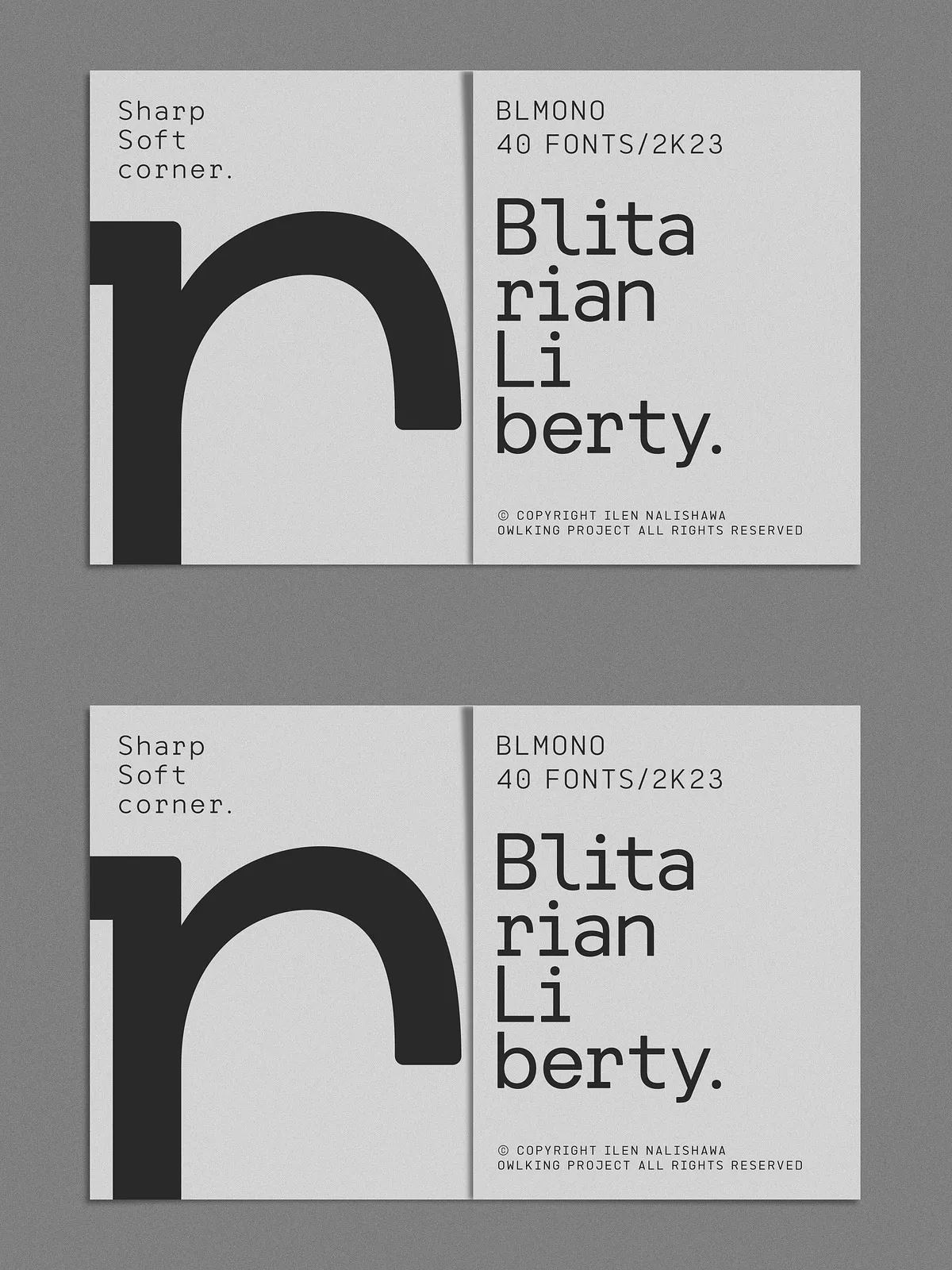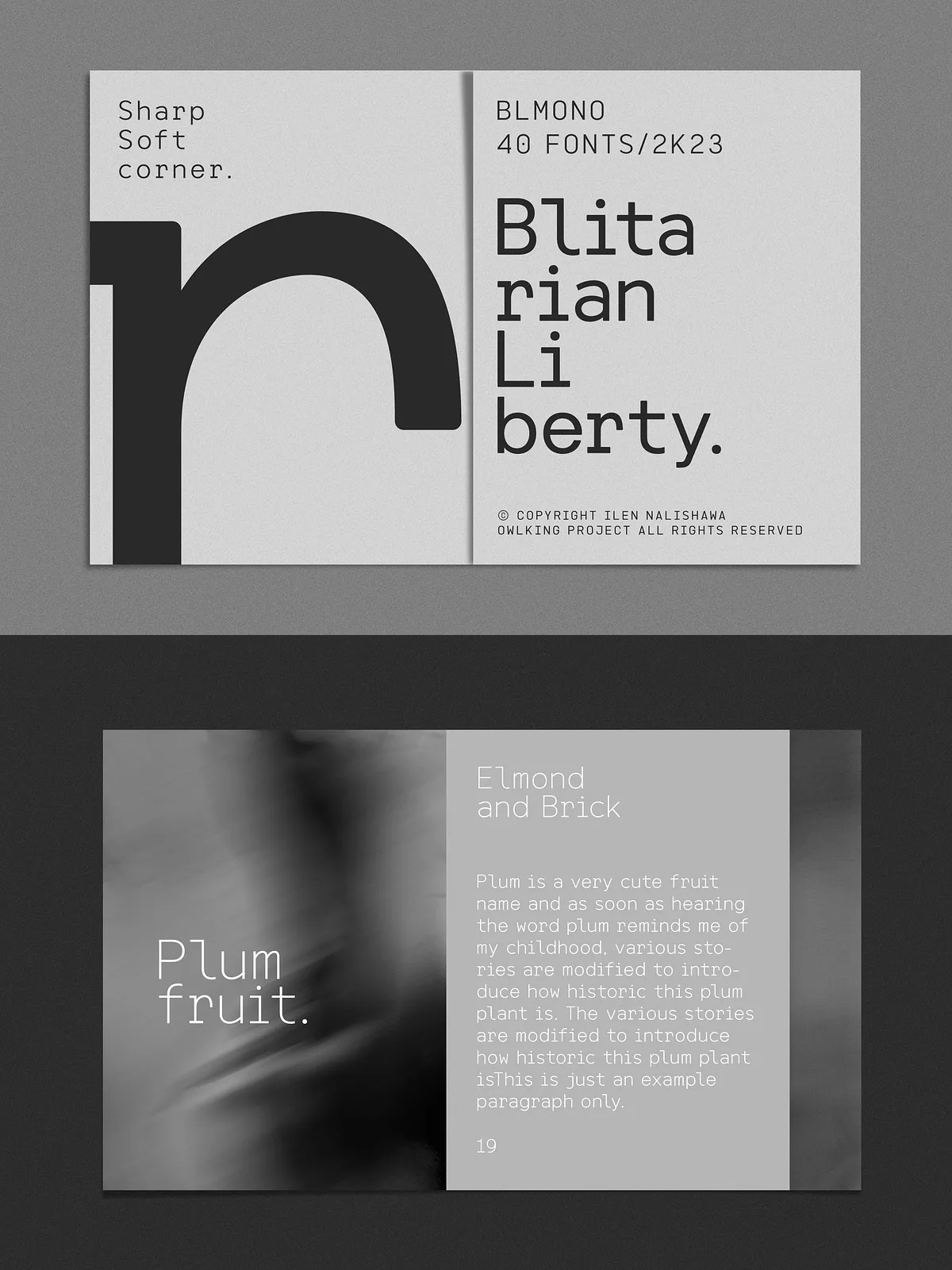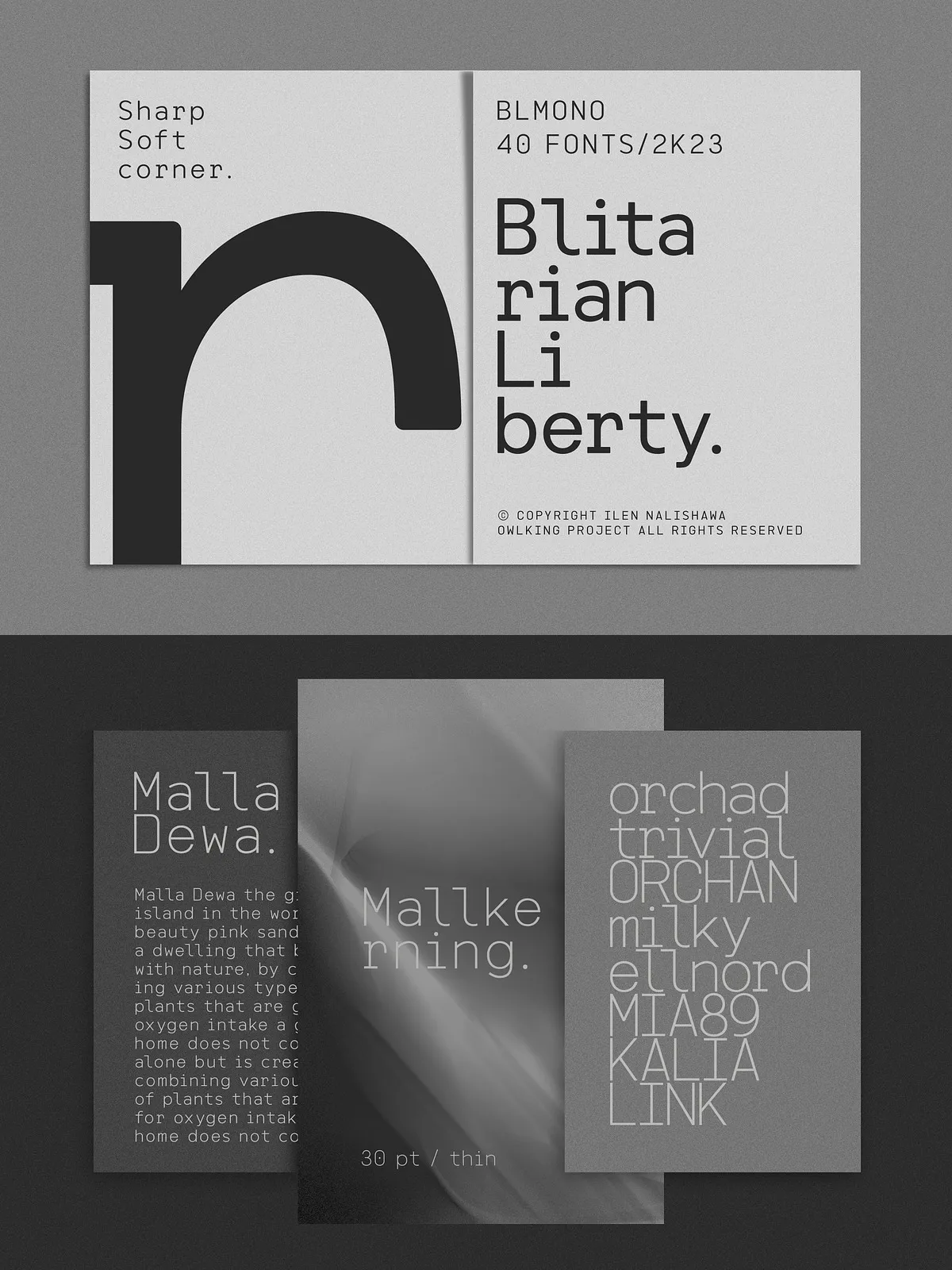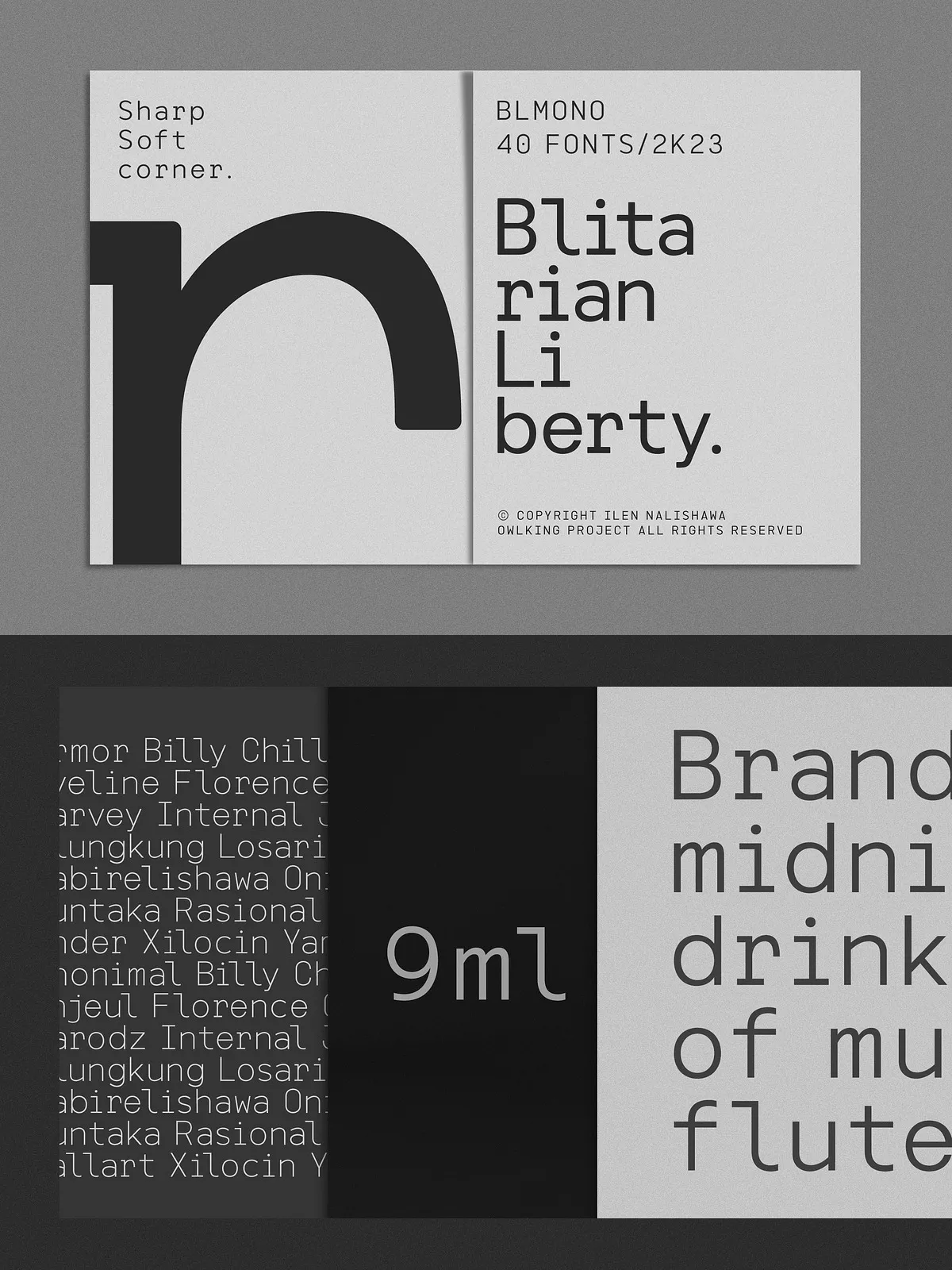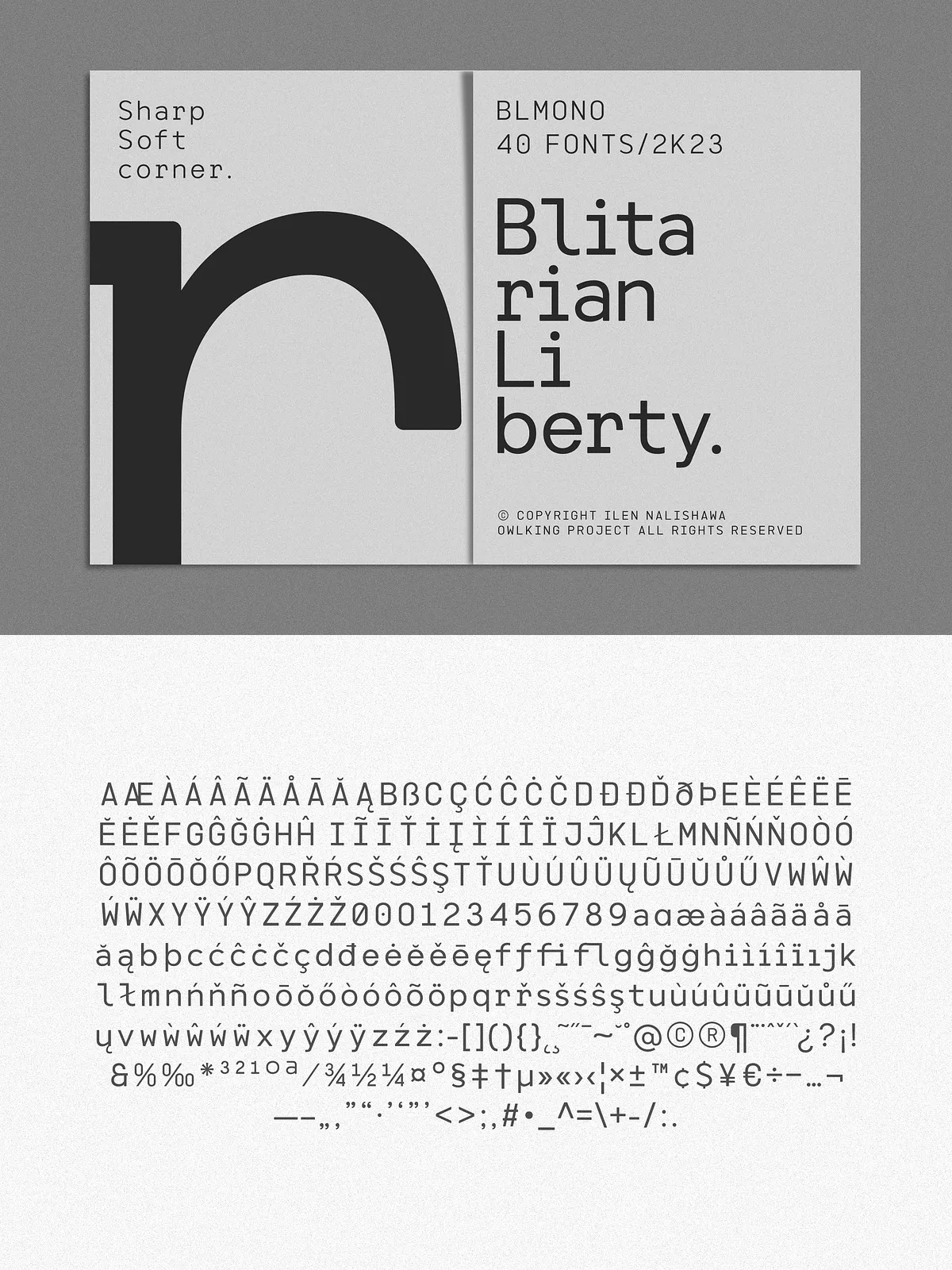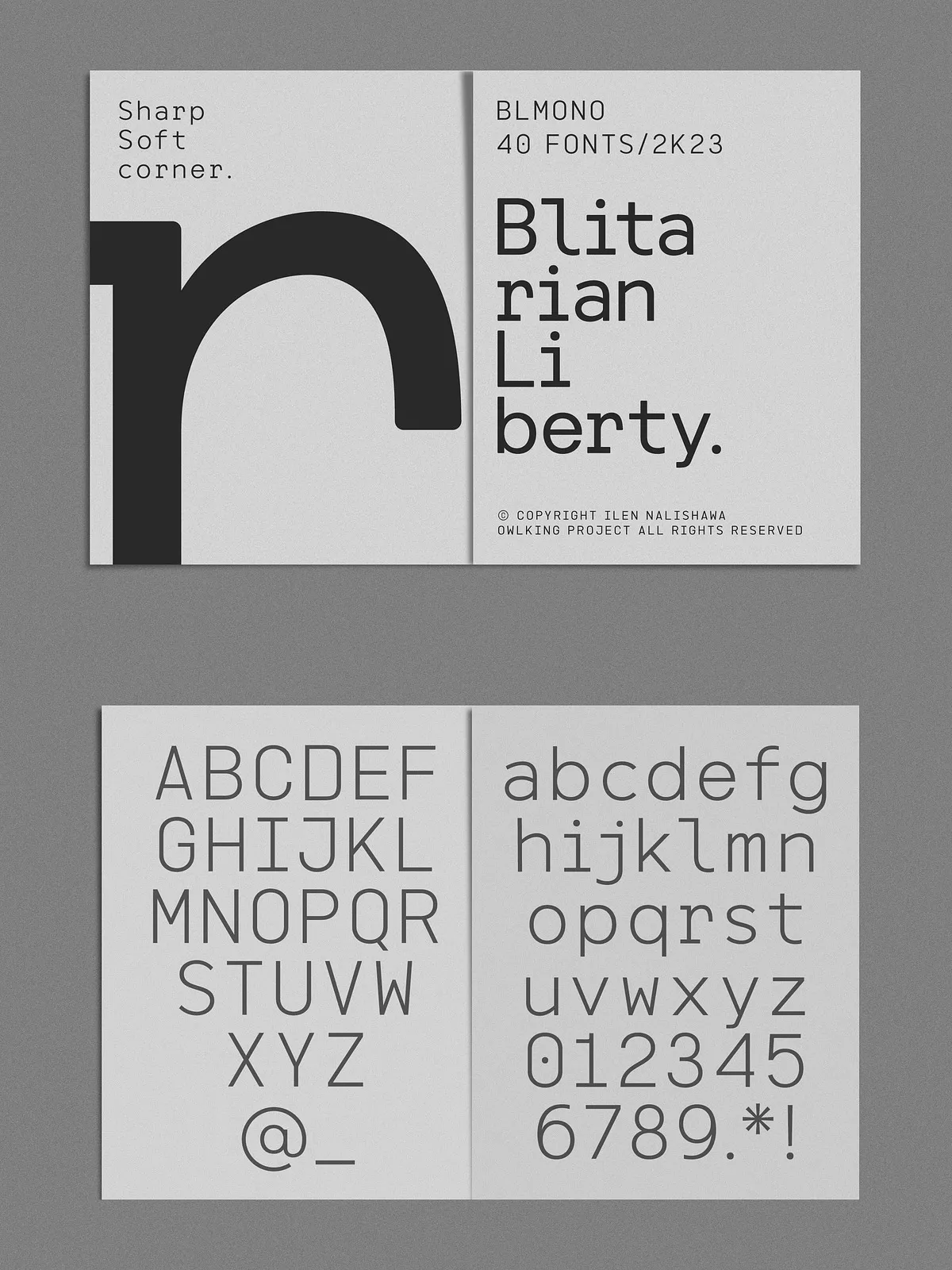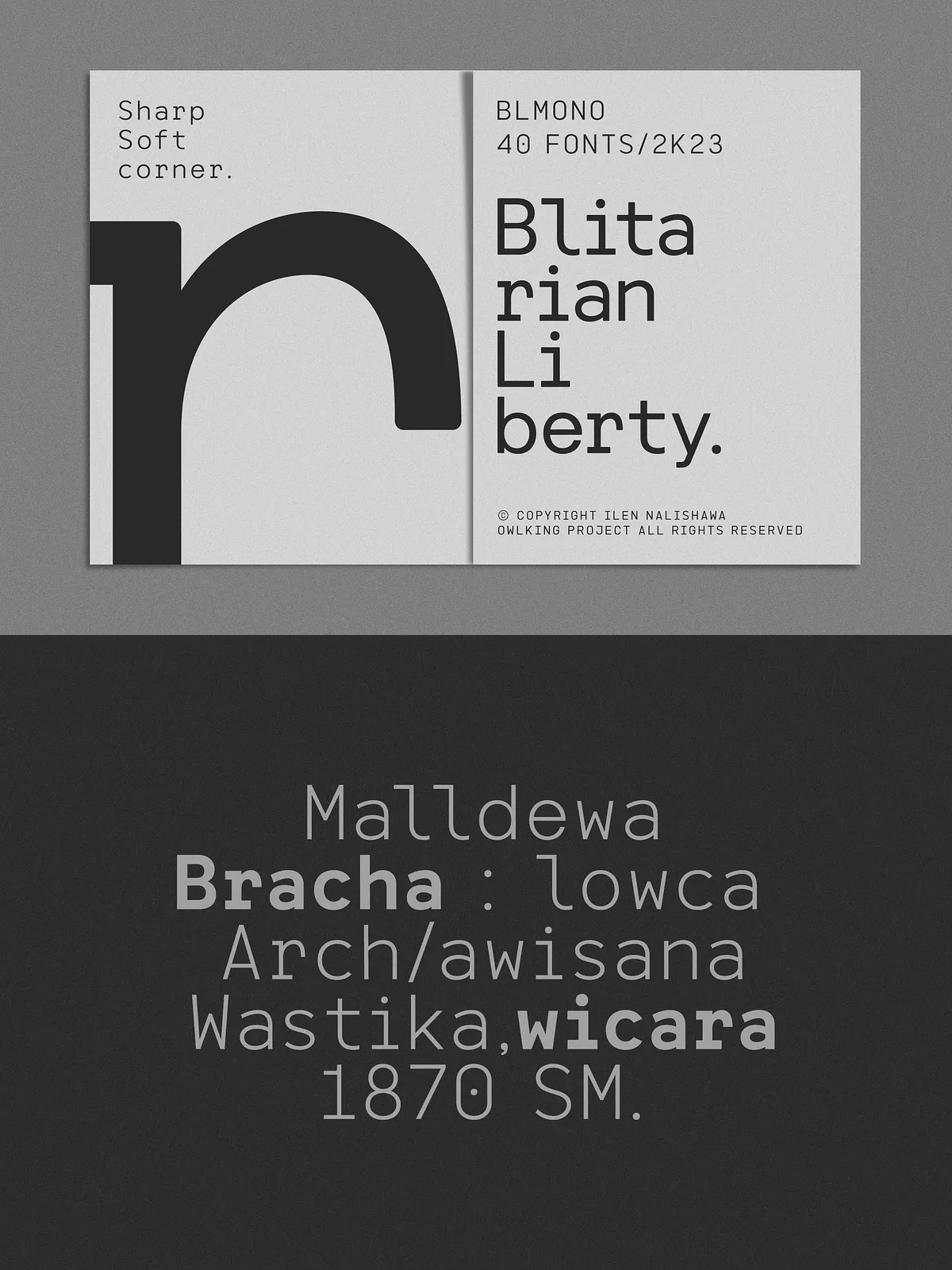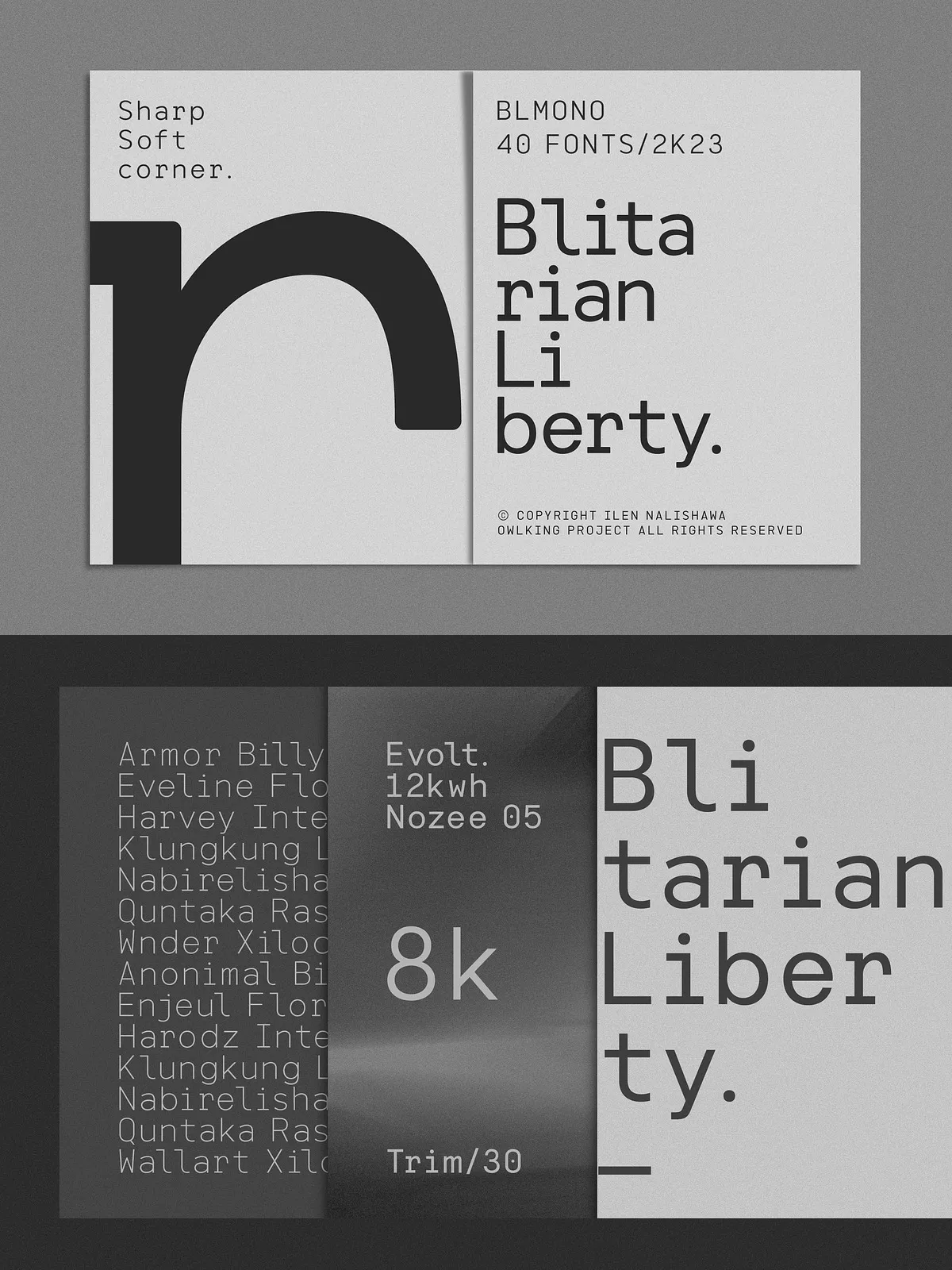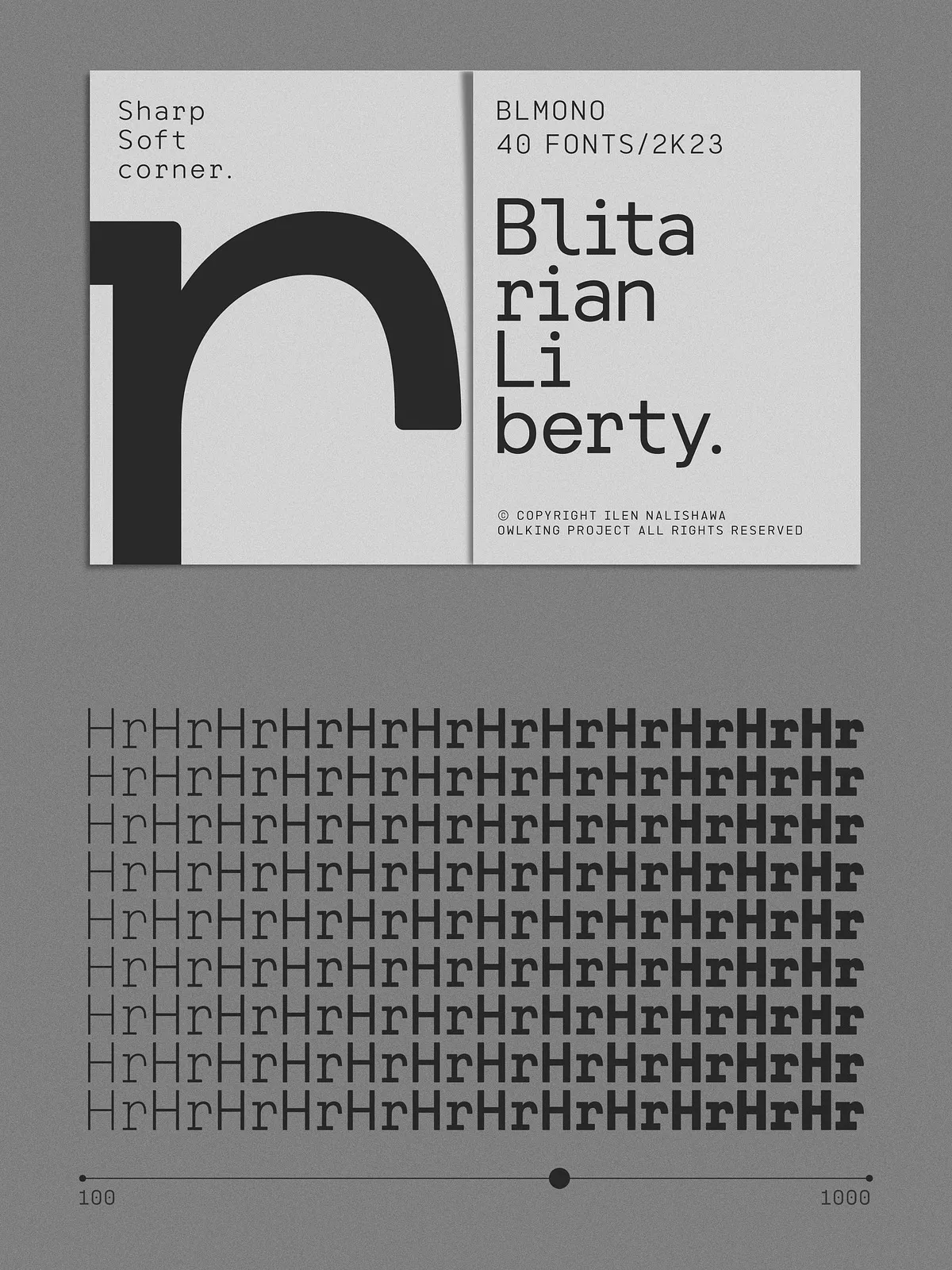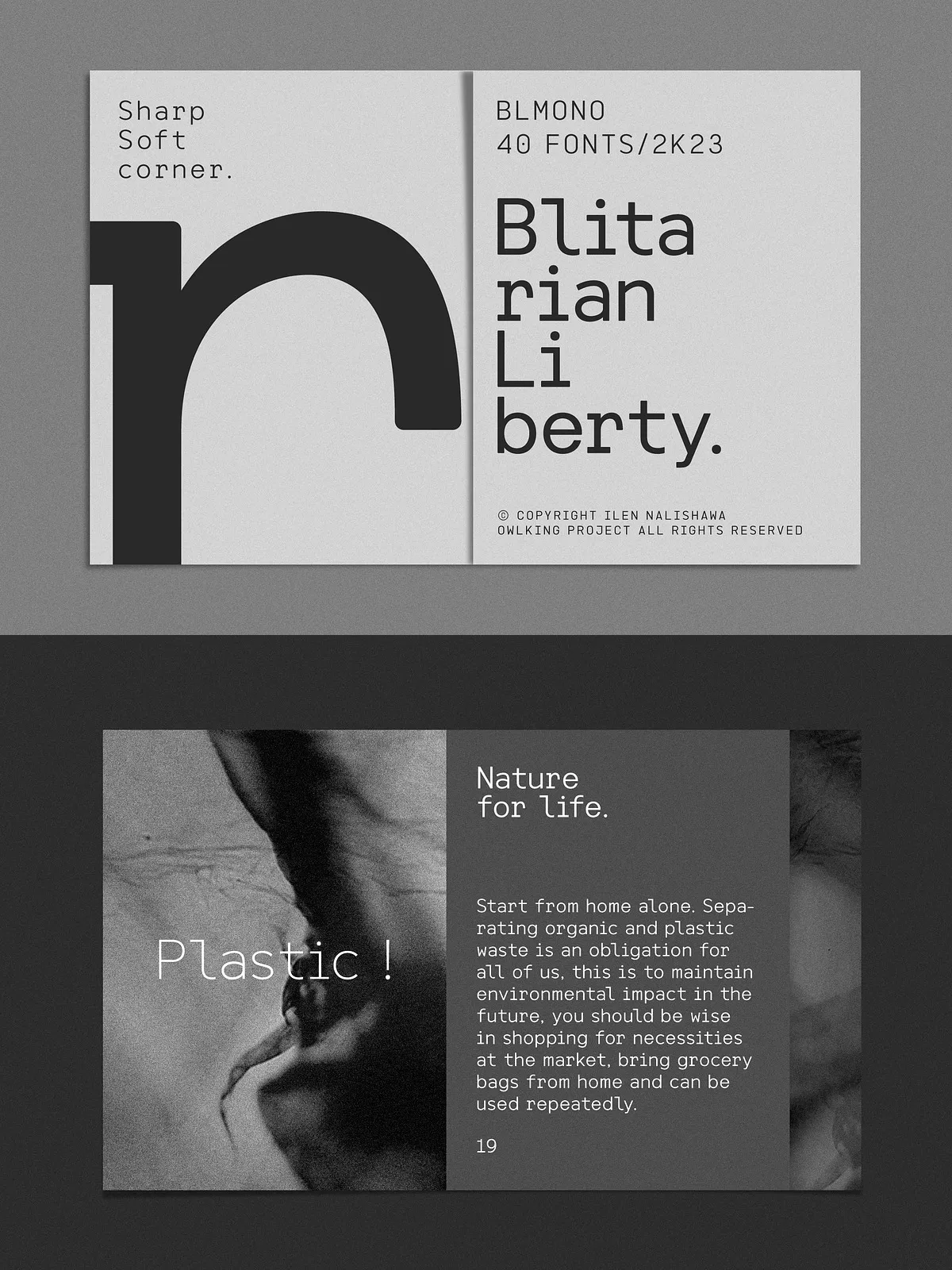
Introducing Blitarian Liberty — a revolutionary monospace font that redefines what a digital typeface can do. With an exceptional range of 40 weight variations, including full italic counterparts, this font family delivers unprecedented precision and stylistic flexibility. Whether you’re crafting a minimalist tech poster, designing a sleek UI interface, or building a futuristic branding identity, Blitarian Liberty gives you the tools to express every nuance of your vision.
Every weight — from the razor-thin Thin Italic to the powerhouse Extra Black Italic — is meticulously crafted to maintain structural integrity and visual harmony. The consistent monospaced alignment ensures clean alignment across columns and grids, while the subtle curved corner shapes give each character a dynamic, modern edge that breaks away from traditional rigid monotype designs.
Designed for the Future: Where Form Meets Function
Blitarian Liberty isn’t just a font — it’s a design philosophy. Engineered for creators who demand both aesthetic impact and technical precision, it bridges the gap between retro digital nostalgia and cutting-edge creativity.
Its curved corner geometry adds fluidity to otherwise rigid letterforms, creating a modern, hi-tech aesthetic that pulses with energy and motion. This makes it ideal for short titles, punchy statements, code snippets, UI labels, and visual storytelling elements where clarity and visual intrigue are critical.
Use it to:
- Create striking poster designs with minimal text and maximum impact
- Highlight code fragments or technical content in documentation
- Enhance app interfaces, product labels, or digital signage
- Build a strong visual identity for tech startups, creative studios, and digital brands
Powerful Versatility Across Creative Projects
Blitarian Liberty thrives where space is limited, and impact is everything. Its compact, readable structure makes it perfect for short-form design elements that need to carry weight — both literally and figuratively.
• Poster & Billboard Design
Use Blitarian Liberty for taglines, event dates, and artist names. The contrast between high contrast and soft curves draws the eye instantly, making your message impossible to miss.
• UI/UX & Web Typography
Deploy it in dashboards, buttons, and status indicators. Its consistent width ensures alignment perfection, while its modern curves add a welcome touch of sophistication to otherwise utilitarian layouts.
• Code & Technical Documentation
Stand out with syntax highlighting that’s both functional and stylish. The uniform character width ensures perfect alignment in code blocks, while the unique curve treatment gives your technical content a creative signature.
• Branding & Identity Systems
Build a bold visual voice with a font that’s memorable and scalable. From business cards to billboards, Blitarian Liberty ensures your brand feels innovative, professional, and deeply intentional.
Don’t settle for fonts that blend in. Stand out with a typeface built for bold ideas and creative confidence.
Whether you’re building a futuristic app, designing a viral poster, or launching a tech brand, Blitarian Liberty gives you the power to shape the future — one character at a time.